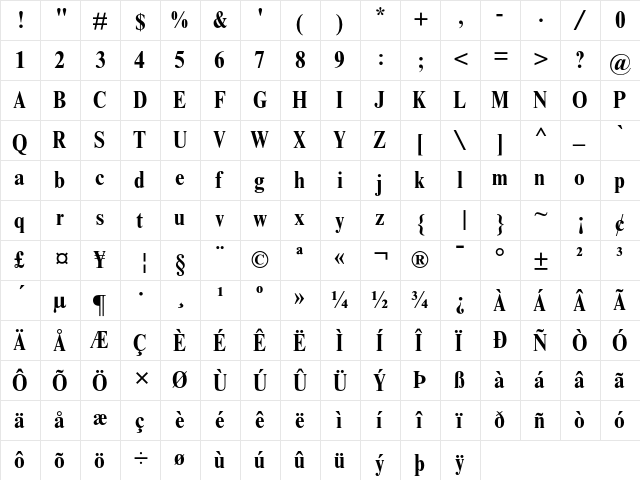
Times Bold Condensed
Design Context for Times Typeface
Times takes a measured approach to typography — its balanced proportions and neutral character make it a reliable workhorse for both digital and print work. The heavy weight commands attention and anchors typographic hierarchies. Its narrow stance lets it pack a punch even in space-constrained designs.